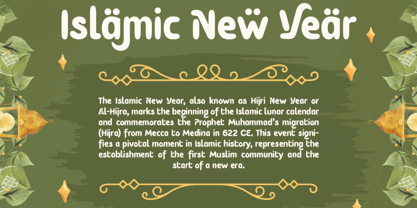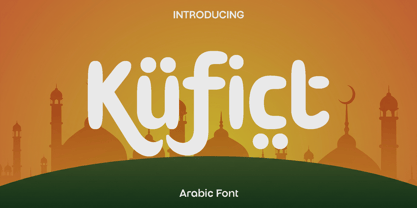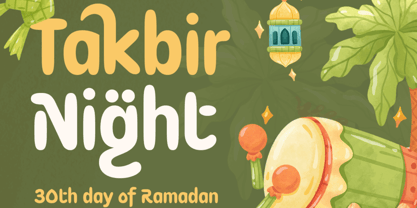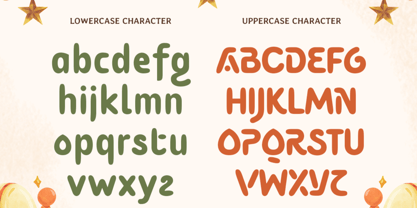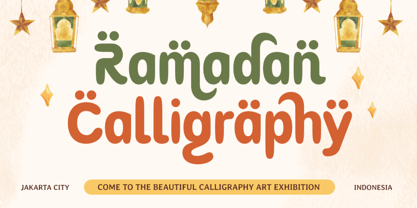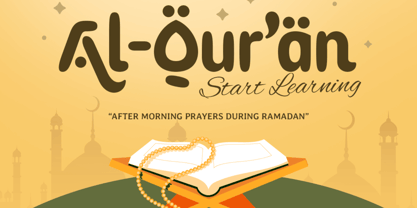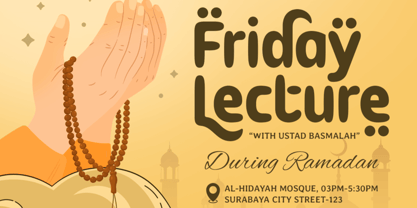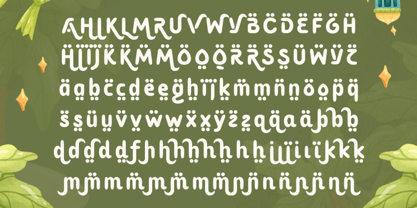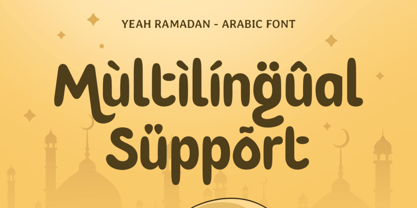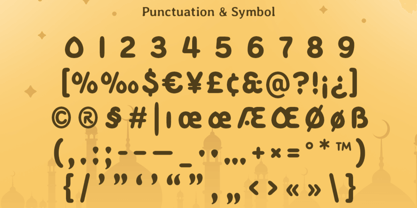
Kufict
by Only Fonts
The Kufict Font Family was designed by Olivia Love and published by Only Fonts. Kufict contains 1 styles. More about this family
Kufict – Elegant Arabic Ramadan Font Kufict is an elegant Arabic-inspired font designed to celebrate the beauty of Islamic culture and the spiritual atmosphere of Ramadan. Drawing inspiration from the rich heritage of Arabic calligraphy, Kufict features graceful curves, artistic strokes, and modern refinement, resulting in a typeface that feels both authentic and contemporary. Each character is meticulously crafted to infuse warmth, harmony, and cultural elegance into your creative projects. Ideal for festive and meaningful creations, Kufict is perfect for Ramadan campaigns, Eid greeting cards, invitations, Islamic branding, social media content, packaging, posters, and decorative typography. Its balanced design allows it to seamlessly integrate into both modern and traditional concepts, giving your visuals a timeless and sophisticated appearance. Kufict embodies a calm and elegant personality, making every design more expressive and memorable. The alternate characters offer creative flexibility, enabling designers to create unique typographic compositions with an artistic flair. Whether used for headlines, logos, or decorative layouts, Kufict enhances the emotional connection of your designs with a sense of spirituality and celebration. Blending tradition with modern design aesthetics, Kufict transforms typography into a beautiful artistic statement. It is the ideal choice for creators who wish to honor Islamic culture while crafting elegant and visually captivating projects. Kufict Arabic Font Features: • Alternate characters ready • Punctuation, numbers, and symbols • Uppercase and lowercase • OpenType features • Multilingual support for 50 plus languages • Arabic-inspired artistic style • Perfect for Ramadan, Eid, invitations, branding, and packaging
Designers: Olivia Love
Foundry: Only Fonts